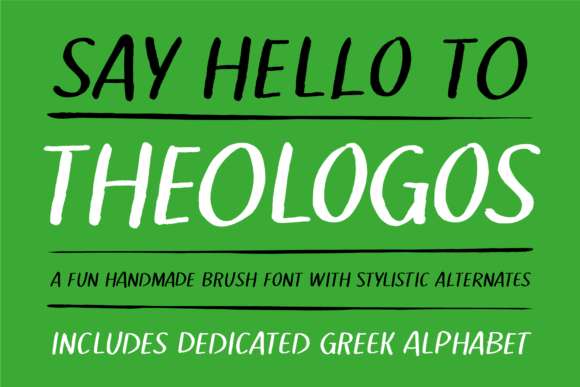
Theologos Font
Behold Theologos, the decorative font engineered to unleash your creativity and captivate your audience! Crafted by the skilled hands of georgebourle, this font is not just a collection of letters; it's an artistic expression that dances on your designs, leaving a trail of elegance and sophistication.
Picture this: You're working on a project that demands an enchanting touch, a font that speaks volumes without uttering a single word. Theologos steps onto the stage, its playful appearance drawing the eye like a magnet. Its curves flow effortlessly, intertwining with each other like a graceful dance, while its bold strokes exude confidence and charisma.
With Theologos, the possibilities are endless. Create eye-catching logos that demand attention, headers that command respect, and marketing materials that leave a lasting impression. Unleash your imagination and watch as your designs transform into captivating masterpieces that capture hearts and minds.
Don't settle for ordinary fonts that blend into the background. Embrace Theologos, and let your designs shine with a brilliance that sets them apart from the crowd. It's more than just a font; it's a gateway to a world where creativity thrives and originality reigns supreme.
Step into the realm of design excellence with Theologos, and experience the transformative power of a font that will redefine your creative horizons. Don't let your designs be confined by ordinary fonts; let Theologos take you on a journey of artistic exploration where anything is possible.